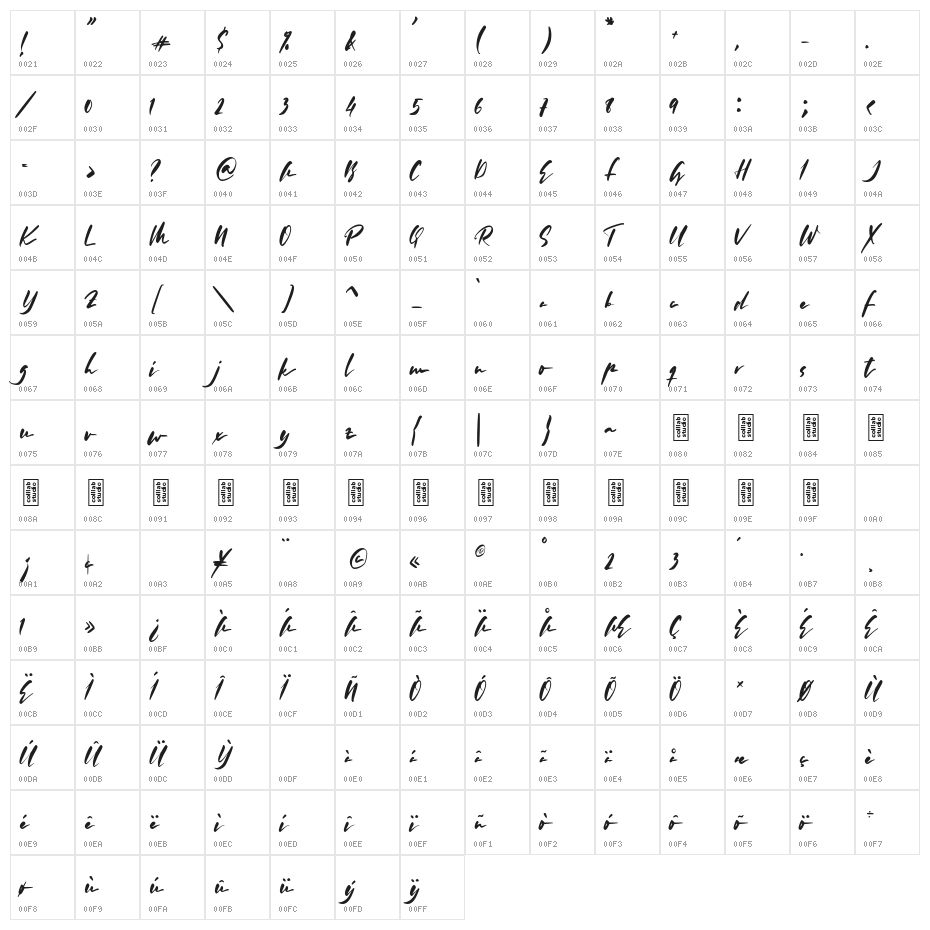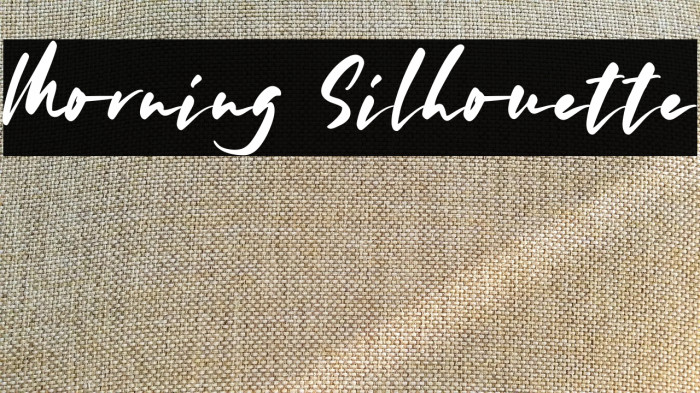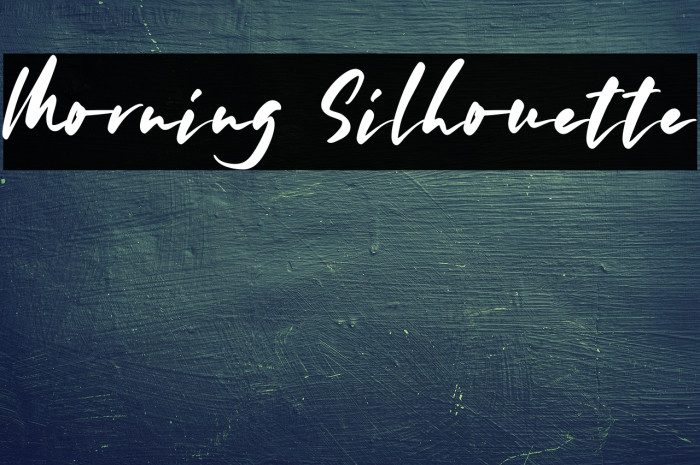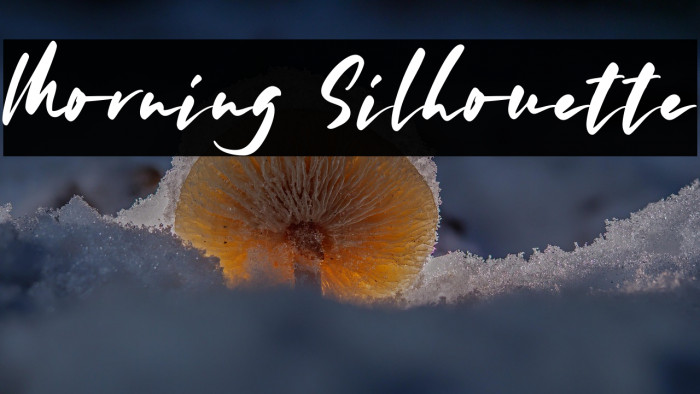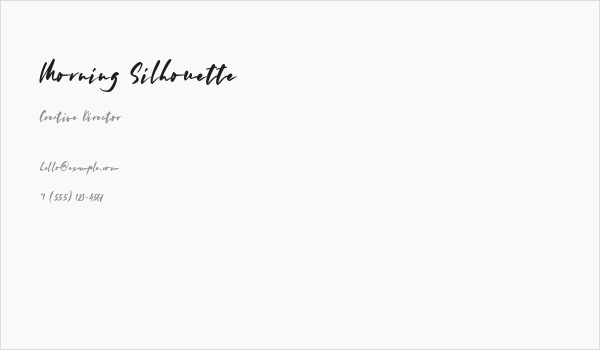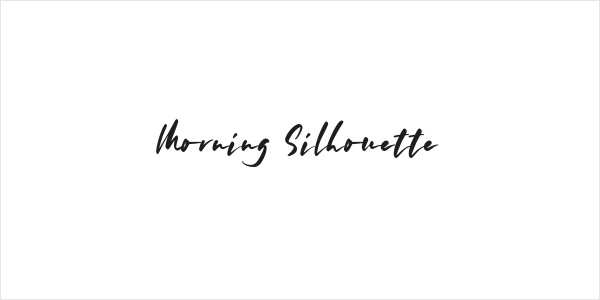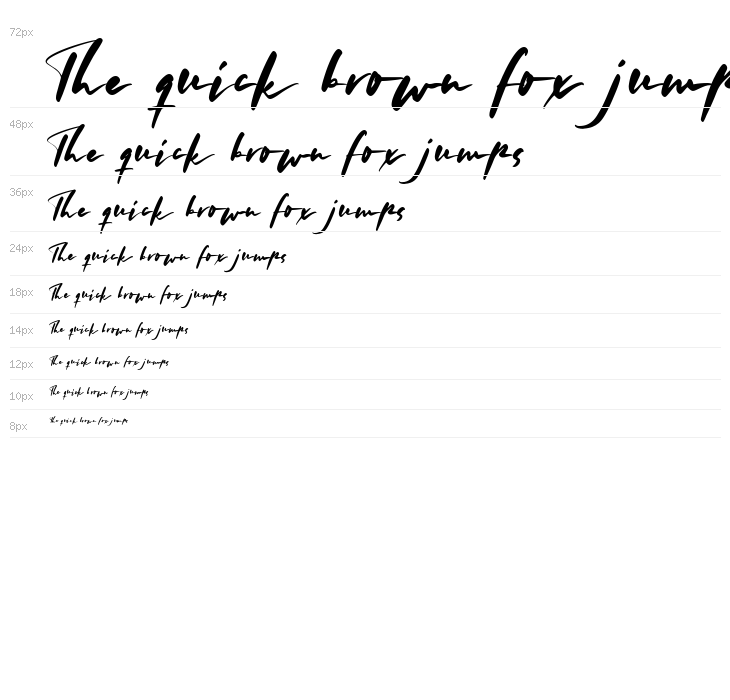
Morning Silhouette Font
Morning Silhouette Description
This font exudes a dynamic and expressive style, characterized by its fluid, brush-like strokes that convey a sense of movement and energy. The letters are crafted with varying thickness, adding a lively and artistic flair. The uppercase and lowercase characters maintain a consistent flow, while the numerals and special characters integrate seamlessly with the overall design. The font's handwritten quality makes it ideal for projects that require a personal touch, such as invitations, greeting cards, or branding materials. Its bold and striking appearance ensures that it stands out, making it suitable for headlines or logos where a strong visual impact is desired.
| Proposed Projects | Ideal for invitations, greeting cards, branding, headlines, and logos. |